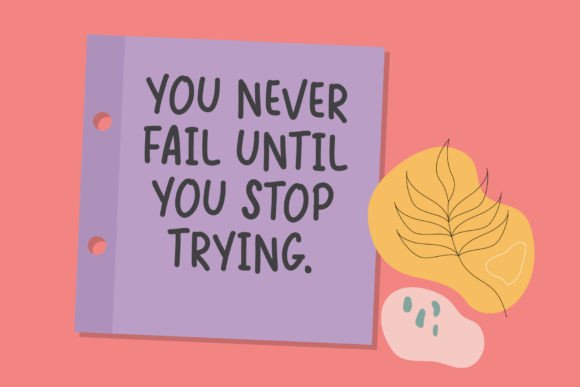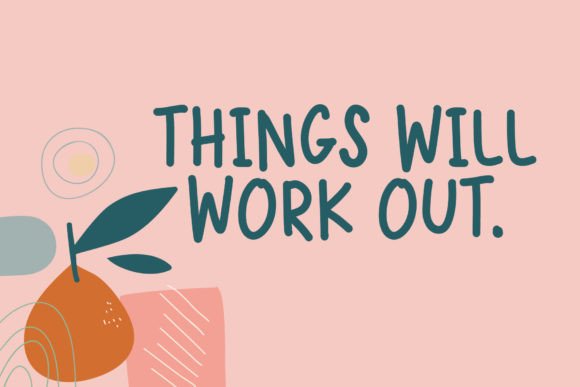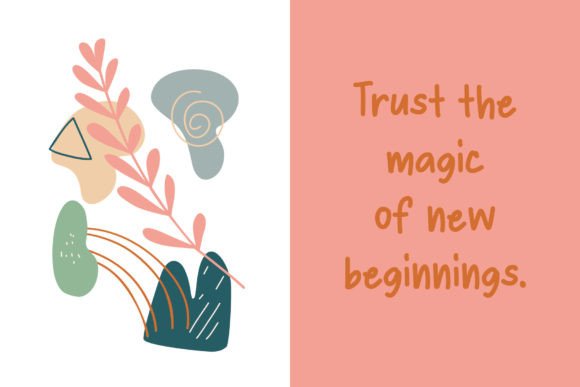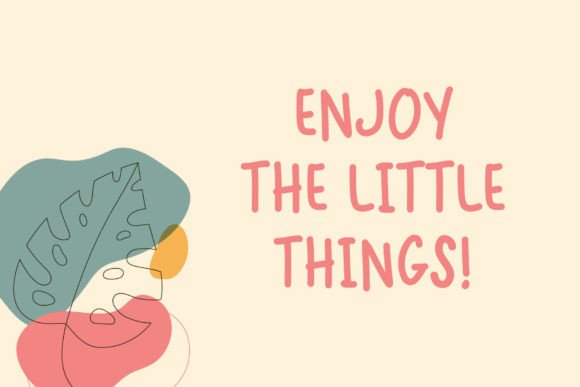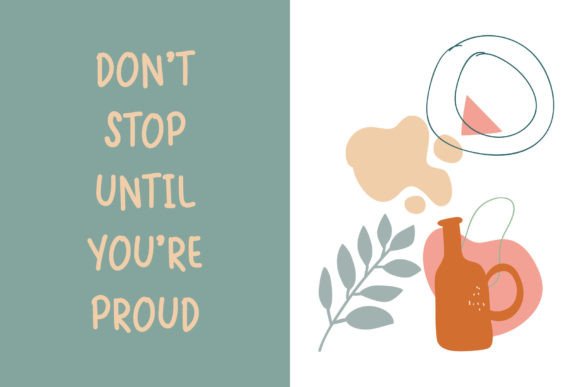
Discover the Charm of Emily Notes Font: Elevate Your Creations with a Touch of Whimsy
Are you tired of using the same old fonts in your designs and crafts? Look no further than Emily Notes Font, a delightful handwritten font that’s sure to add a touch of personality to any project. With its playful and charming vibe, Emily Notes is the perfect addition to any font collection. In this article, we’ll dive into the world of Emily Notes Font and explore its features, benefits, and uses.
The Allure of Handwritten Fonts
There’s something undeniably special about handwritten fonts. They evoke a sense of warmth, personality, and human touch that’s hard to replicate with more formal, digital fonts. Whether you’re a designer, crafter, or simply a DIY enthusiast, a good handwritten font can elevate your creations and make them stand out from the crowd. And among the many beautiful handwritten fonts out there, Emily Notes Font stands out for its unique charm and versatility.
Getting to Know Emily Notes Font
So, what makes Emily Notes Font so special? For starters, its handwritten style is both elegant and playful, making it perfect for a wide range of projects, from wedding invitations and party decor to blog posts and social media graphics. The font’s characters are carefully crafted to resemble the imperfections and quirks of real handwriting, giving it a delightfully organic feel that’s sure to capture your audience’s attention.
Another advantage of Emily Notes Font is its exceptional legibility. Even at smaller sizes, the font remains clear and easy to read, making it perfect for body text and longer blocks of content. And with its extensive character set, you can use Emily Notes Font to create everything from simple headings and titles to more complex, multi-line text elements.
The Benefits of Using Emily Notes Font
So, why should you add Emily Notes Font to your font collection? For one, its versatility and charm make it an excellent choice for a wide range of projects and applications. Whether you’re designing a logo, creating a social media graphic, or crafting a handmade card or gift tag, Emily Notes Font is sure to add a touch of personality and whimsy to your work.
Another benefit of using Emily Notes Font is its ability to evoke a sense of warmth and connection with your audience. In an era of digital communication, handwritten fonts like Emily Notes offer a refreshing respite from the cold, impersonal world of digital media. By incorporating Emily Notes Font into your designs and crafts, you can create a more personal, human connection with your audience and make your work more memorable and engaging.
Using Emily Notes Font in Your Designs and Crafts
So, how can you start using Emily Notes Font in your designs and crafts? Here are a few ideas to get you started:
- Wedding invitations and party decor: Emily Notes Font is perfect for creating beautiful, one-of-a-kind wedding invitations, party decorations, and other celebratory materials.
- Blog posts and social media graphics: Add a touch of personality to your blog posts and social media graphics with Emily Notes Font, and make your content stand out from the crowd.
- Handmade cards and gift tags: Use Emily Notes Font to create beautiful, handmade cards and gift tags that are sure to delight your friends and family.
- Branding and packaging: Emily Notes Font is also an excellent choice for branding and packaging applications, where its unique charm and personality can help your product or service stand out.
| Font Name | Emily Notes Font |
| Author | FontDuo |
There’s nothing cuter than a handwritten font such as Emily Notes. Its potential to elevate any creation will make this font a valuable addition to your font collection. With its playful and charming vibe, exceptional legibility, and extensive character set, Emily Notes Font is the perfect choice for designers, crafters, and DIY enthusiasts looking to add a touch of personality and whimsy to their work. So why wait? Download Emily Notes Font today and start creating your own unique and engaging designs and crafts!